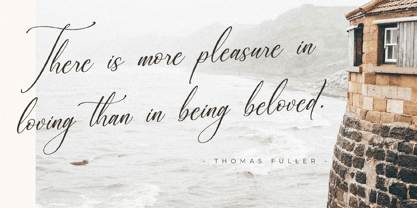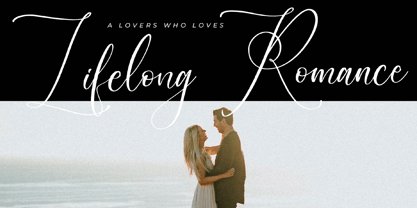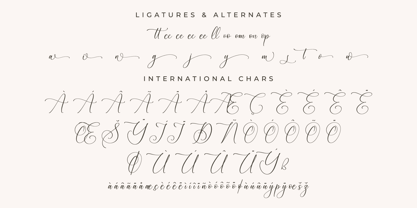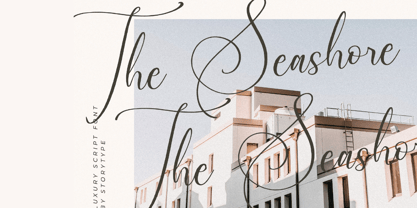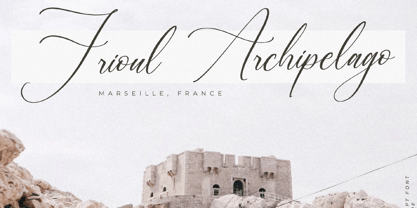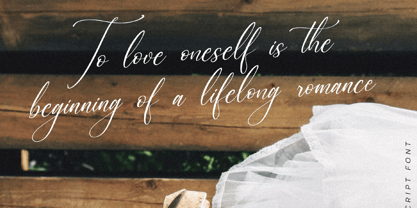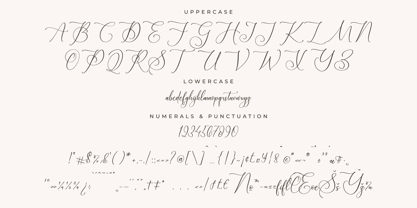
Blacksttam
by Letterena Studios
The Blacksttam Font Family was designed by Heru Utama Putra and published by Letterena Studios. Blacksttam contains 2 styles and family package options.
Blacksttam is a luxurious script font with a unique style and modern look.
This typeface is perfect for an elegant & luxury logo, book or movie title design, fashion brand, magazine, clothes, lettering, quotes, and so much more.